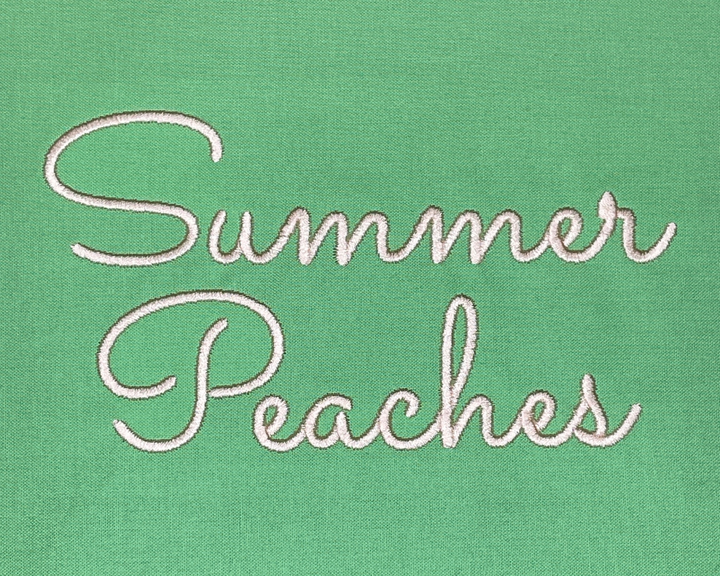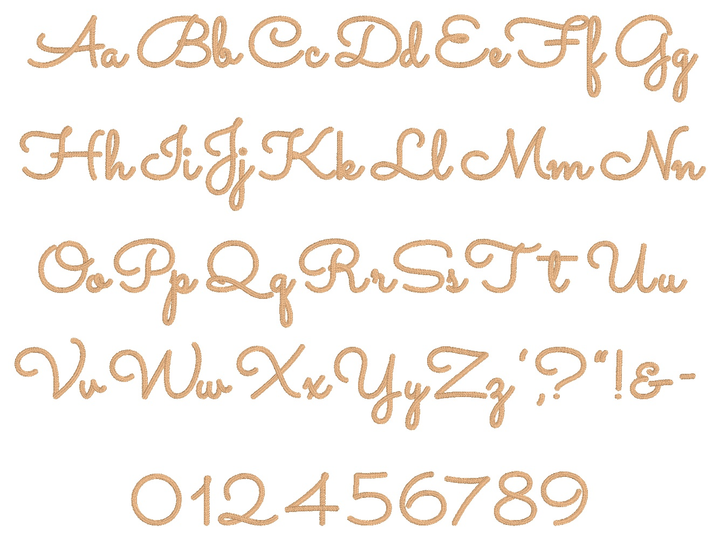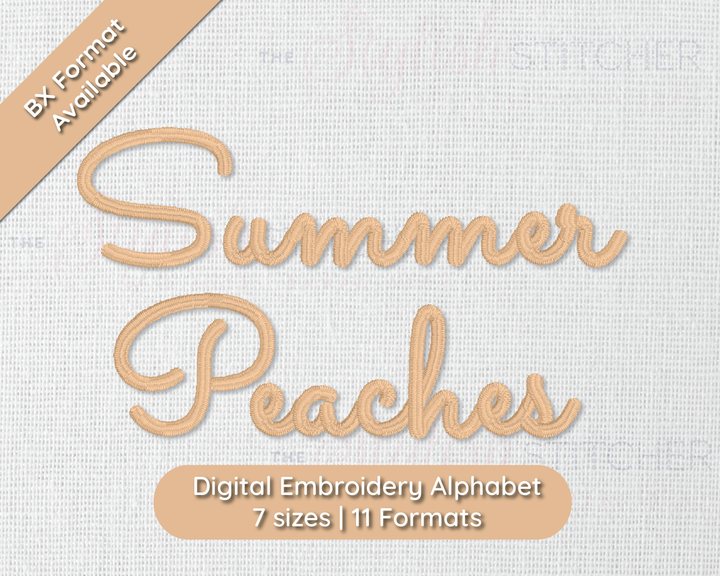
Summer Peaches Digital Embroidery Font
Introducing Summer Peaches! The smooth and flowing letters stitch beautifully, adding a delightful touch to any creation. Ideal for summertime projects or any time you want to evoke a sense of warmth and sweetness. Download now and start creating with Summer Peaches!
Included: Uppercase Letters, Lowercase Letters, Alternates, 7 Punctuation, Numbers
Stitch Type: Satin Stitch + Split Satin Stitch